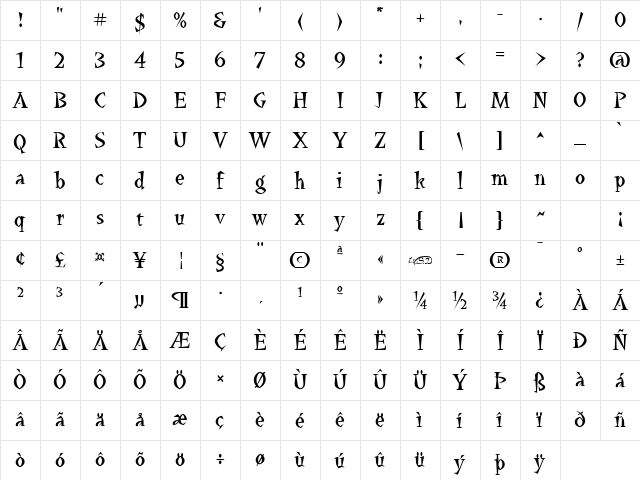
Yucatan Normal Free Font
Yucatan Normal
Yucatan Family
Design Context for Yucatan
Yucatan is a composed and adaptable typeface that performs quietly and consistently across a wide range of design contexts.